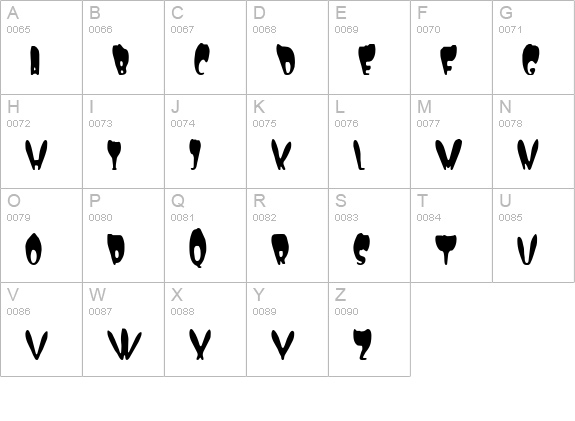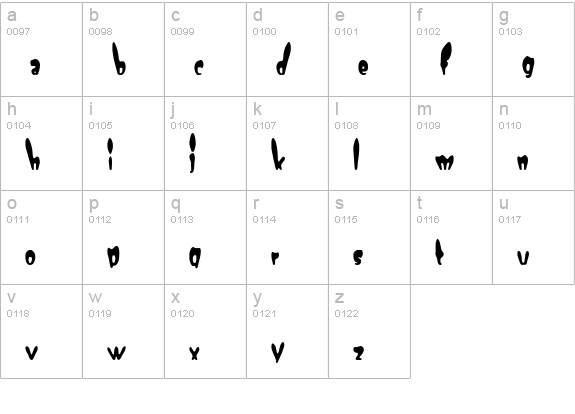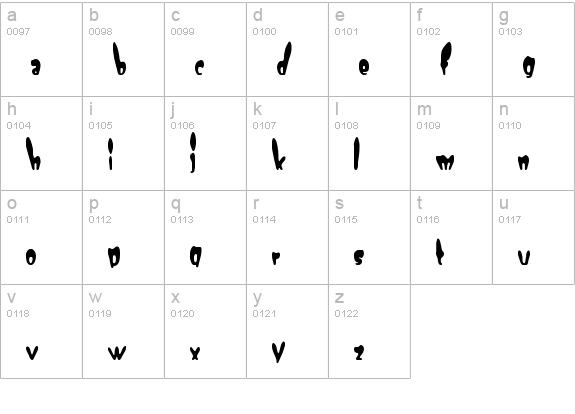
Numskull (BRK) Font Details
Numskull (BRK) font is a playful and quirky typeface designed to add a touch of whimsy to your projects. With its unique and eye-catching appearance, this font is perfect for creating fun and memorable designs. The irregular shapes and uneven lines give Numskull (BRK) a hand-drawn look that is both charming and versatile. Whether you are working on a poster, logo, or website, this font will bring a sense of creativity and originality to your work. Best of all, Numskull (BRK) font is completely free to download at FontsMarket.com. This means that you can easily add this font to your collection without breaking the bank. So why wait? Download Numskull (BRK) font today and let your imagination run wild with this delightful and expressive typeface.